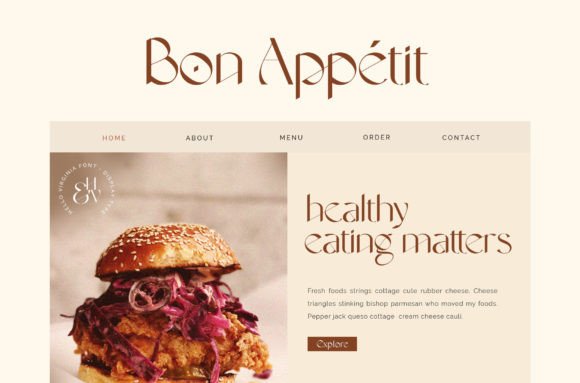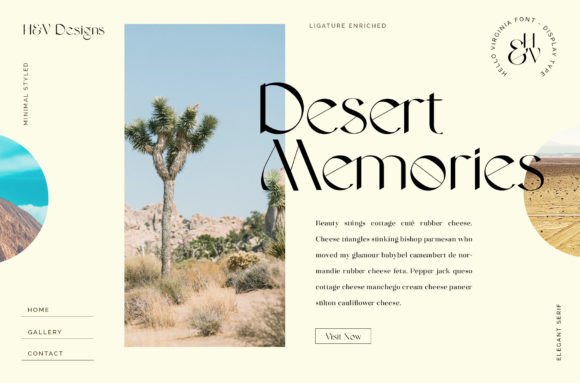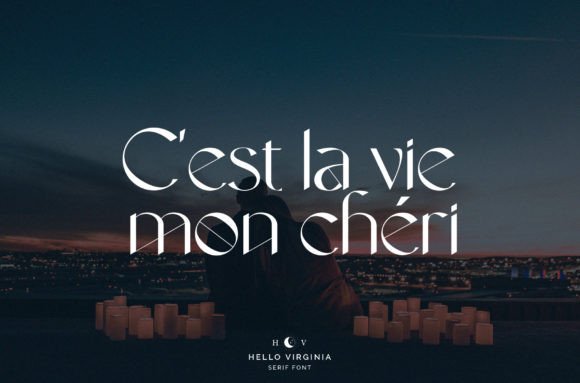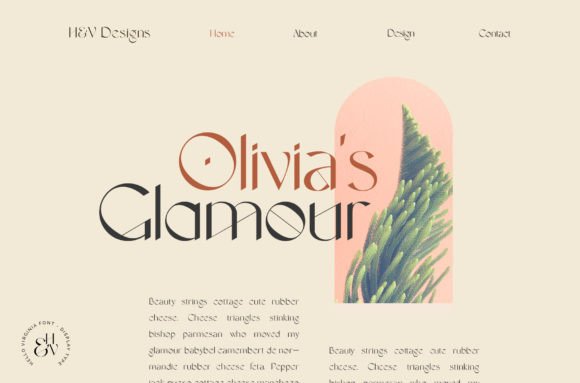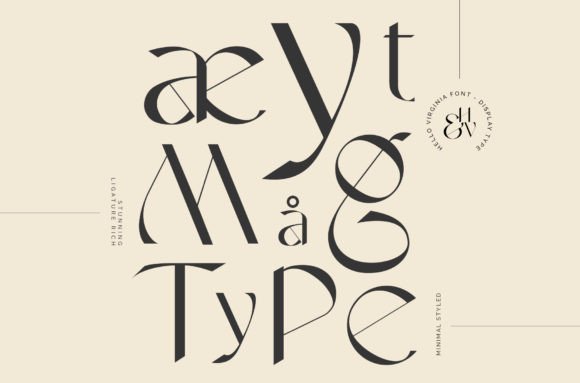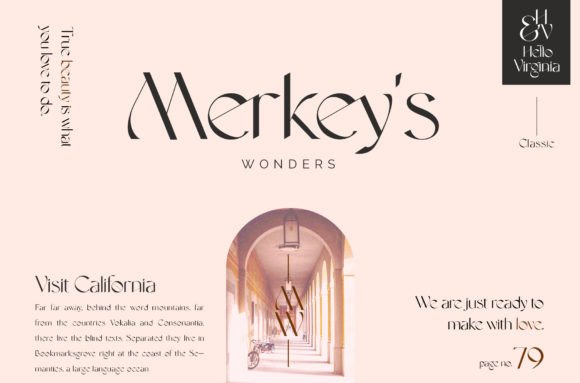
Introduction to Hello Virginia Font
With stunning ligatures, Hello Virginia is a very adaptable sans serif font, that can be used for a wide range of projects, from elegant magazine mastheads to wedding invitations, branding, cards, web headers, poster design and so much more.
With beautiful stylistic alternates and ligatures, the font will be your best choice for both text and display typography This font is PUA encoded which means you can access all the glyphs and ligatures with ease.